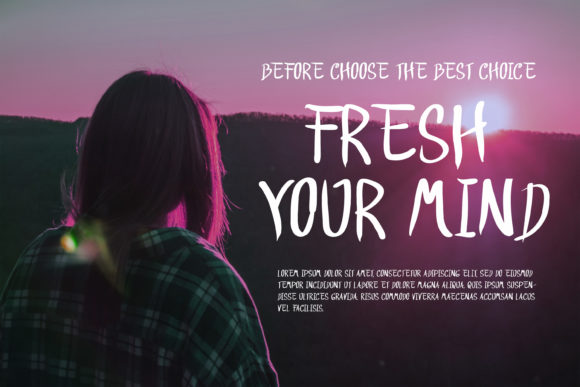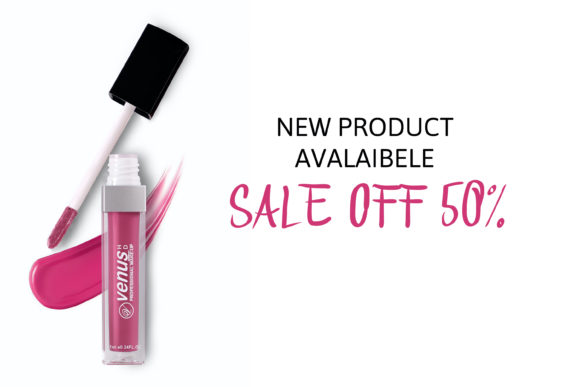
Introduction to Ciao Adios Font
Ciao Adios is a simple and relaxed handwritten font.
It can be used for various purposes such as logos, wedding invitations, headings, t-shirts, letterhead, signage, labels, news, posters, badges and so much more .
Key Features of Ciao Adios Font
Why Choose Ciao Adios Font?
Ciao Adios Font offers exceptional quality and versatility, making it a valuable addition to your design toolkit. Whether you’re creating for personal projects or commercial use, Ciao Adios Font delivers professional results.